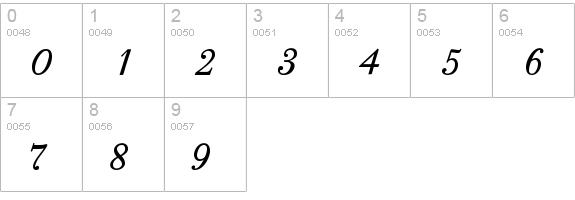
BodoniSixEF-BookItalic font is a sophisticated and elegant typeface that exudes timeless charm and sophistication. Its sleek and graceful italicized design makes it perfect for adding a touch of class to any project. Whether you're working on a wedding invitation, a high-end fashion magazine, or a luxury brand logo, BodoniSixEF-BookItalic font will elevate your design to new heights. What's even better is that this exquisite font is available for free download at FontsMarket.com. With just a few clicks, you can access this premium quality font and enhance your creative projects with its unparalleled beauty and style. Don't miss out on the opportunity to elevate your designs with BodoniSixEF-BookItalic font – get it now and take your typography game to the next level!